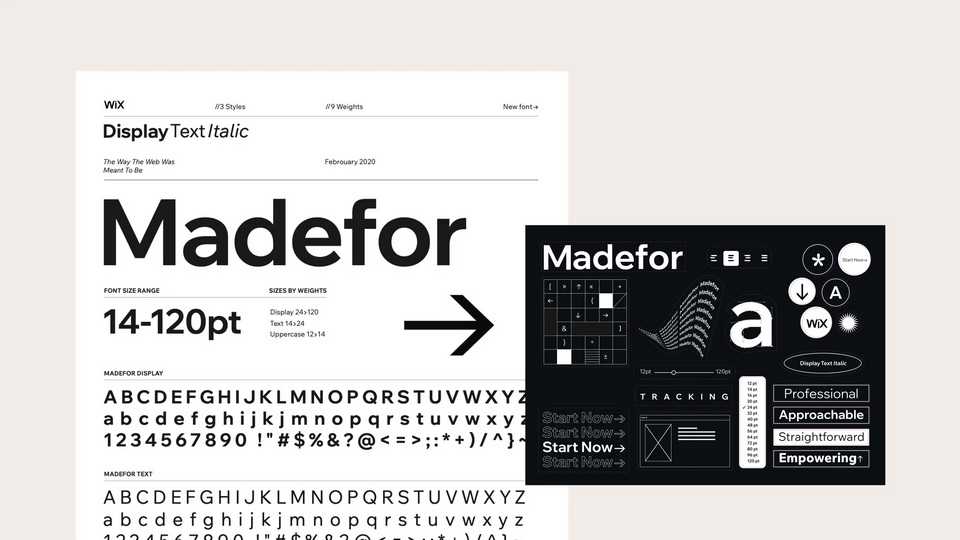
Download Wix Madefor font, a compact typeface of three weights for display setting, and four text weights for use in user interfaces. Wix Madefor was designed to carry subtle features with an engaging and clean appearance.